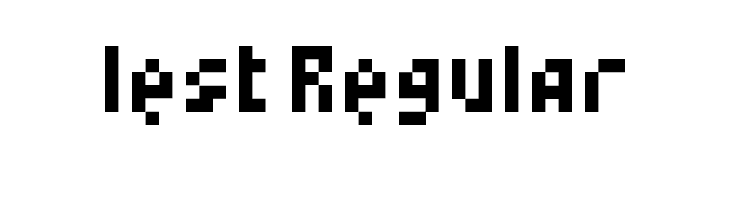
A pixelated, grid-like font with a retro digital aesthetic.
A dot matrix font with a modern, digital display style.
A bold, pixelated font with a retro digital aesthetic.
A pixelated, retro-inspired font with a digital, blocky aesthetic.